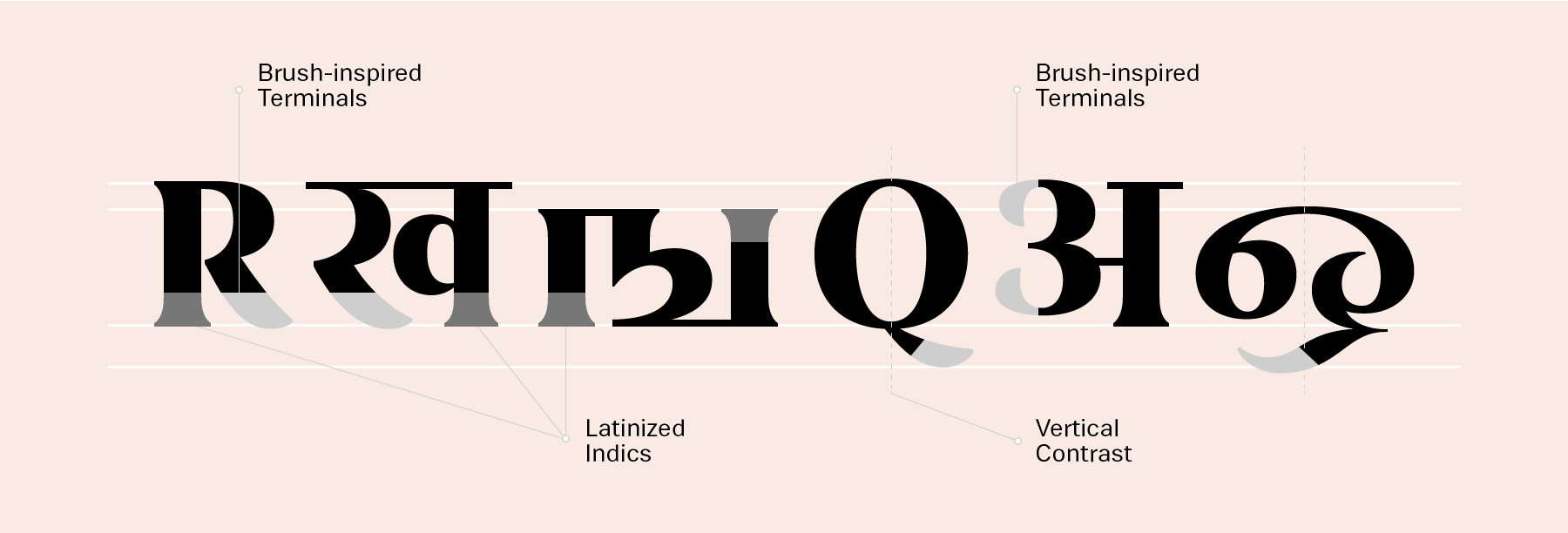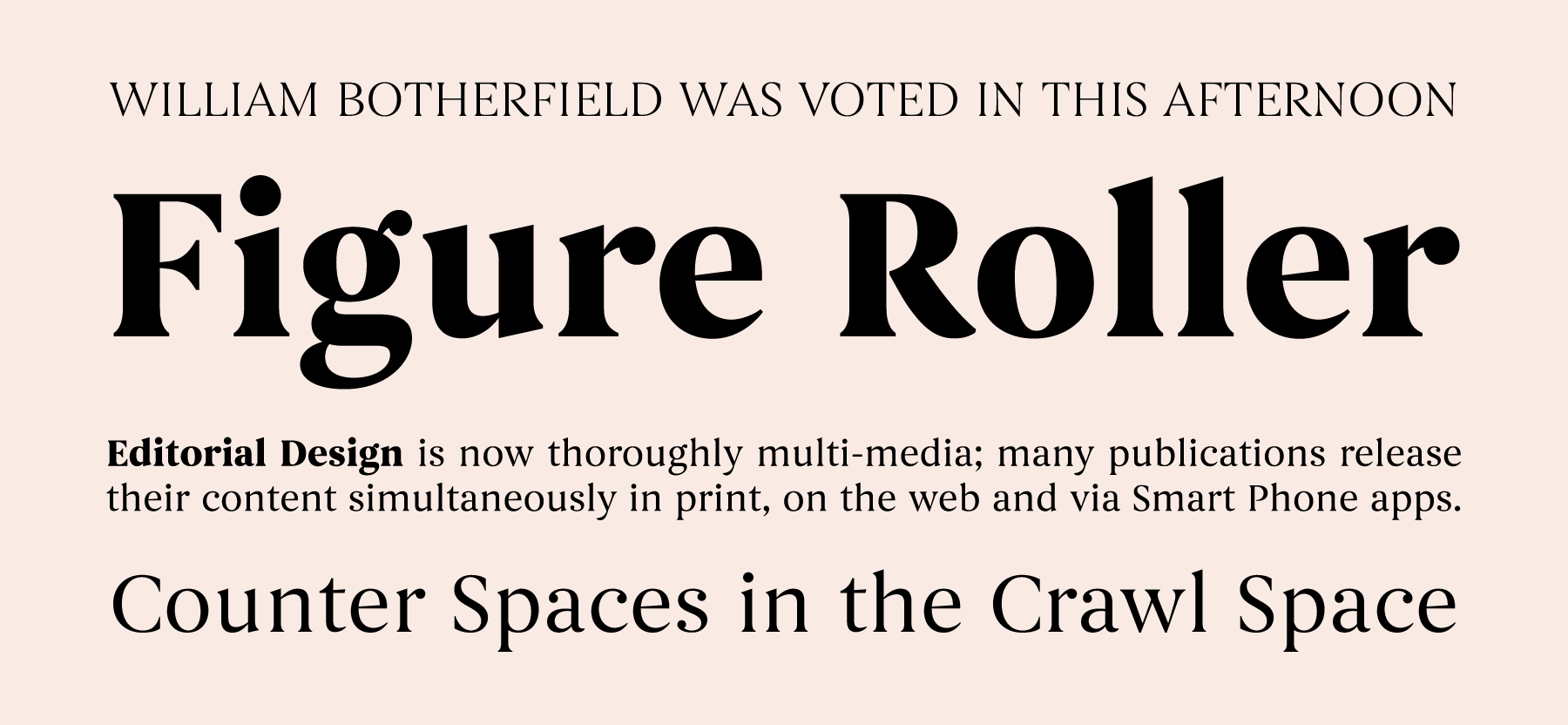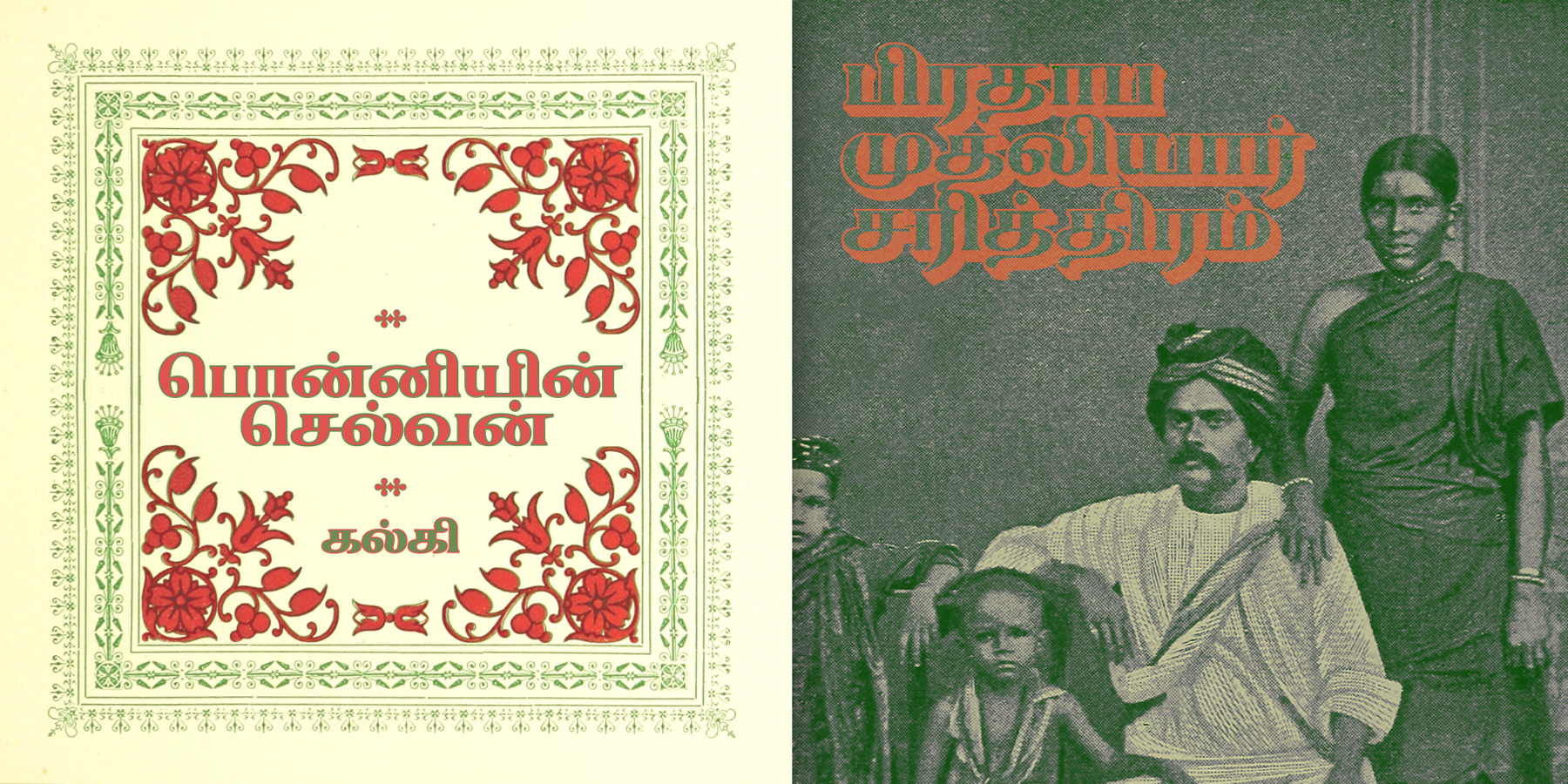
Meet Begum, the Indian Type Foundry’s newest multi-script display super family. Begum is a serif typeface brimming with contrast and supports the Devanagari, Latin and Tamil writing systems. Along with maintaining a visually balanced contrast level throughout the scripts, the indic families are also distinctly latinized with serifs. This aspect is the most characteristic feature of the family.
Begum is different from most of ITF’s previous releases – not because it was conceived as a multi-script super family, but because of its seriffed nature. Many of ITF’s typefaces are sans serifs, monolinears or calligraphically-inspired. Despite serif typefaces’ history – indeed their antiquity – Begum’s appearance is ultra-contemporary. As is the case with many other serif typefaces currently used around the world in Editorial Design work, Begum’s Latin characters share DNA with some of the classic Anglo-Dutch types (Caslon, Fleischmann, Times, etc.).
Editorial Design is now thoroughly multi-media; many publications release their content simultaneously in print, on the web and via Smart Phone apps. Begum’s diversity of intended media is also broader than was the case for many of ITF’s previous releases, some of which were fine-tooled for more specific areas like news tickers or interface design. Since it is a serif typeface, Begum is easily combinable with many other ITF families, including Pilcrow, Engrez and Kohinoor.
In terms of its optimal range of sizes, Begum is a display face. This doesn’t mean that its effectiveness is only limited to headlines, however. Begum’s proportions offer possibilities for many kinds of shorter-length texts, i.e., call-outs, packaging design and the multi-line article introductions that are common in print and on screen. Longer-length texts are more likely to shine in Begum for languages written with the Latin or the Tamil scripts than with the Devanagari script, as Begum’s very high-contrast treatment of the Devanagari base characters is very much in the display tradition.
Despite the obvious latinization-factor of bringing Latin serifs onto Indian scripts, there is quite a tradition in Indian display typography of using Indic letters with seriffed strokes. Especially in the case of the Devanagari script, serif display faces are already found all over the country on billboards, in logos and for occasional headlines in almost every newspaper. Yet before Begum, no typeface had been designed from scratch that included stylistically-matching seriffed letters for both Devanagari and Latin. Text set with Begum in Hindi and English, for example, will match better than combining pre-existing Devanagari and Latin fonts could. This is quite beneficial for campaigns or publications operating in multiple languages simultaneously and gives Begum a leg-up in terms of effectiveness for Editorial Designers working in the Indian market. The Tamil component meanwhile echoes the display typography used in the Tamil literature publishing industry in the early decades of the 20th Century. It bridges history and tradition with contemporary aesthetic choices to create a clear, usable and characteristic display face.
Many of the stroke endings in all three of the scripts supported by Begum have treatments that are almost “brushy.” Since Begum’s Tamil characters are upright in their design, the application of serifs to the vertical strokes is relatively unproblematic, and perhaps even less jarring than it could be considered in the case of Devanagari.
The complete Begum super family was designed in India by Manushi Parikh and released in 2015.